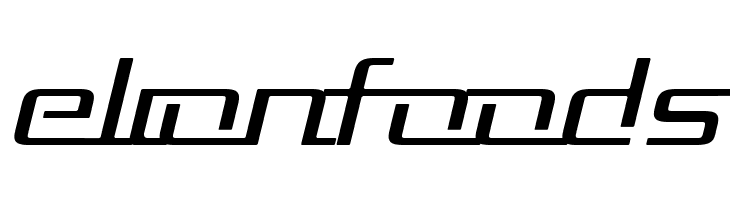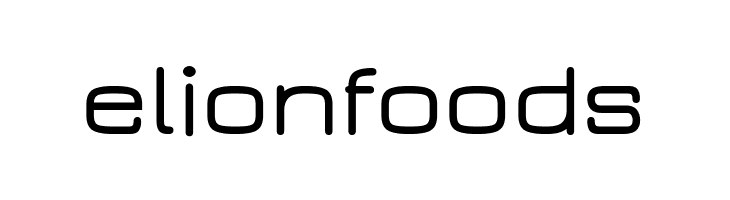
( Fonts by Kevin Christopher - www.kcfonts.com )
A sketch-like, blueprint-inspired font with a hand-drawn, textured appearance.
( Fonts by Mans Greback - www.mawns.com )
A modern, cursive font with elegant, flowing lines and calligraphic influences.
A sleek, modern font with a futuristic, italicized design and geometric influences.
( Paul Lloyd Fonts )
A classic, elegant font with a calligraphic influence.
A bold, angular font with a strong geometric influence.
). ) A modern, rounded sans-serif font with excellent readability and geometric influence.
A classic serif font with calligraphic influences and elegant, flowing forms.
A clean, modern monospaced font with a geometric influence.
A bold, impactful font with thick, uniform strokes and a strong geometric influence.